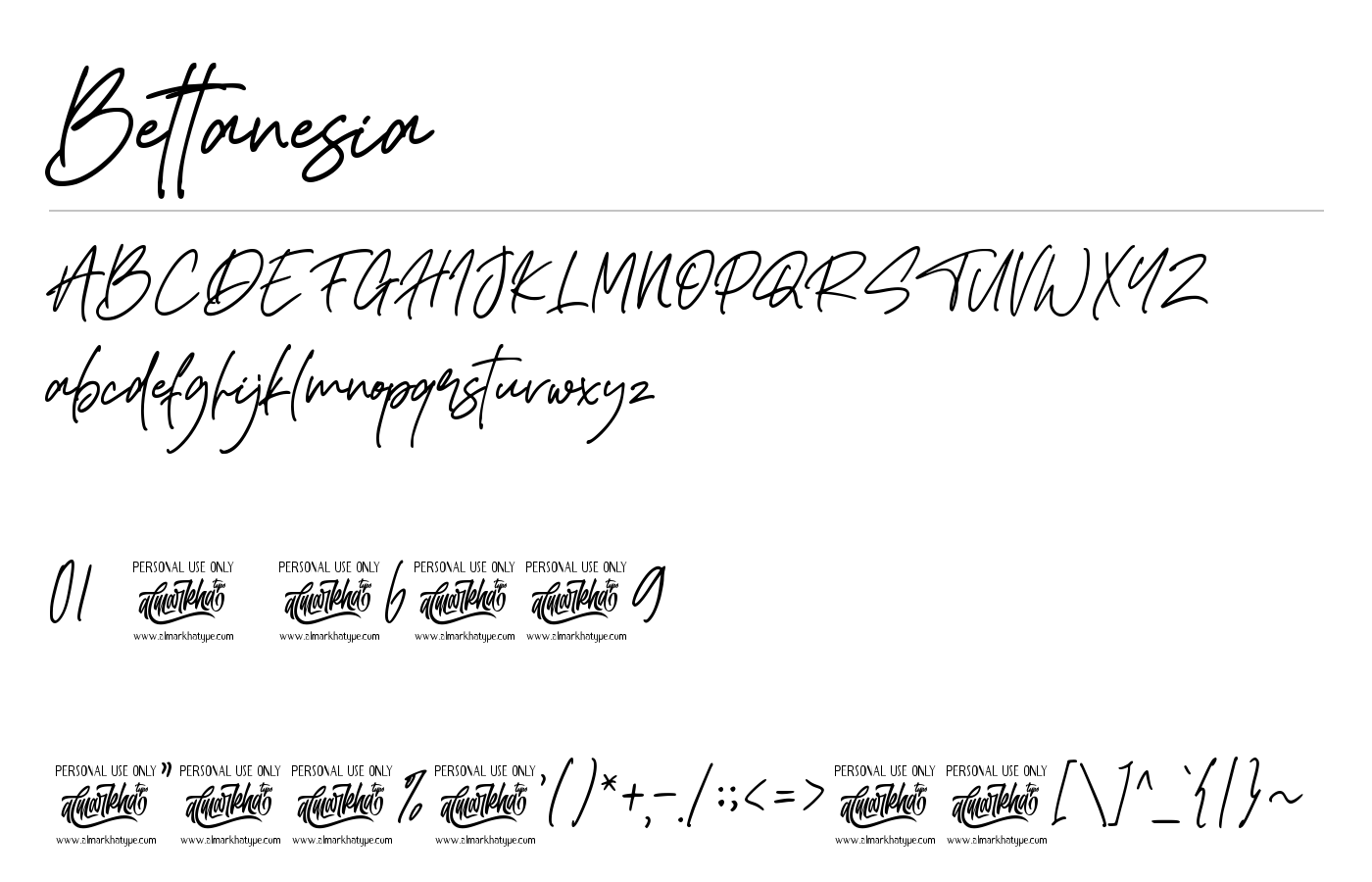
Bettanesia is a lively, handwritten script font with a casual yet elegant flair, characterized by its fluid, slightly irregular strokes and high contrast in line thickness. Its narrow, airy letterforms paired with a distinctive mix of sharp and soft edges make it perfect for adding a personal, artistic touch to branding, invitations, or creative projects. This font shines in designs that seek a stylish, modern, and approachable feel without sacrificing readability.
Bettanesia Font
About Bettanesia Font
| Designer | Almarkhatype Studio - Abdul Malik - Adhy Willy |